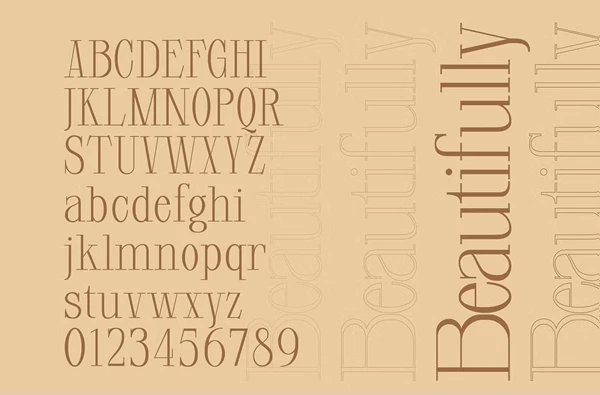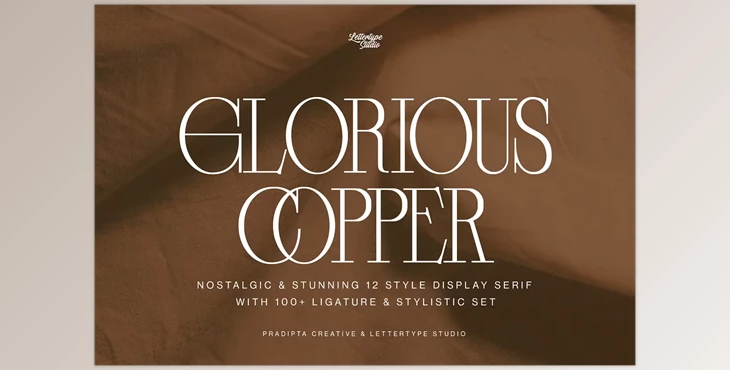
Glorious Copper a Nostalgic Serif Font: Introducing "Glorious Copper," a nostalgic and stunning display serif font that exudes vintage charm and sophistication. With its 12 unique styles and over 100 ligatures and stylistic sets, Glorious Copper offers versatility for a great range of design projects.
Perfect for evoking vintage vibes, Glorious Copper is ideal for logo design, classic and vintage poster layouts, branding, signage, wedding invitations, fashion, lookbooks, book covers, packaging, food and beverages, quotes, and more. Its timeless appeal and versatility make it a valuable asset for designers looking to add a touch of class to their creations.
Key features of Glorious Copper include lowercase and uppercase letters, numerals, punctuation, alternates, ligatures, and multilingual support, ensuring compatibility with various languages and design needs. The font family comprises 12 styles, providing ample options to suit different aesthetics and preferences.
Whether you're working on branding projects, poster designs, invitations, or packaging, Glorious Copper adds a touch of elegance and sophistication, elevating your creations with its nostalgic charm and stunning aesthetics.